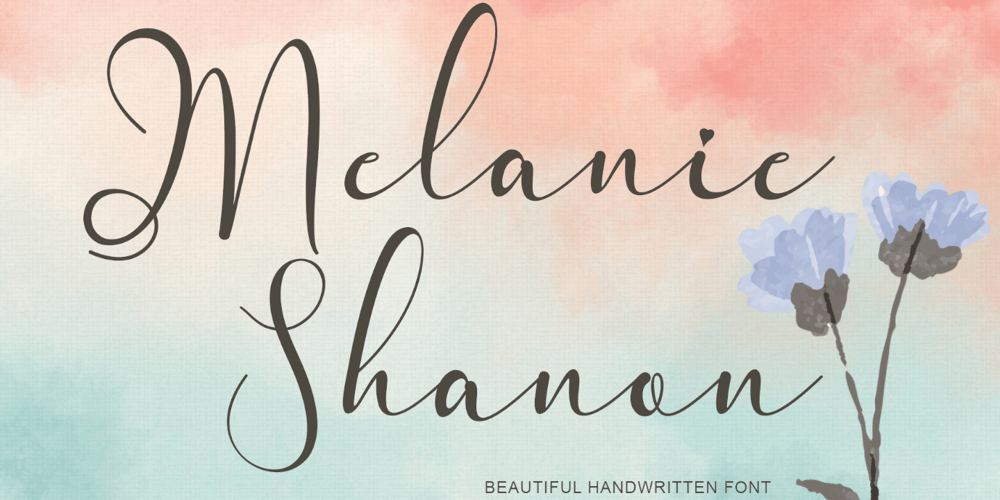
Melanie Shanon Font Family was designed by Selvia Cahya and published by Selvia Design. Melanie Shanon contains 1 styles and family package options. “Melanie Shanon” is a beautiful and elegant handwritten font. This font is equipped with uppercase, lowercase, ligatures, numerals, punctuations and multilingual support. It is suitable for weddings, photography, invitations, branding, logos, business and others.